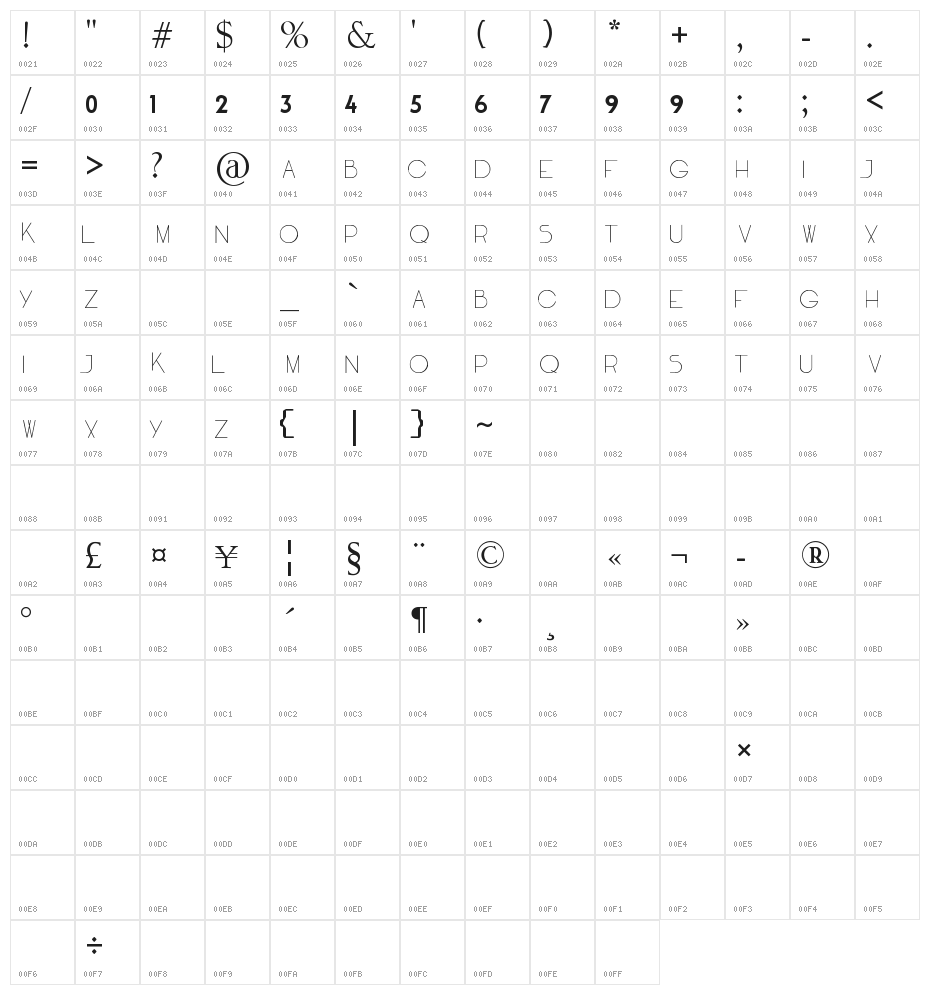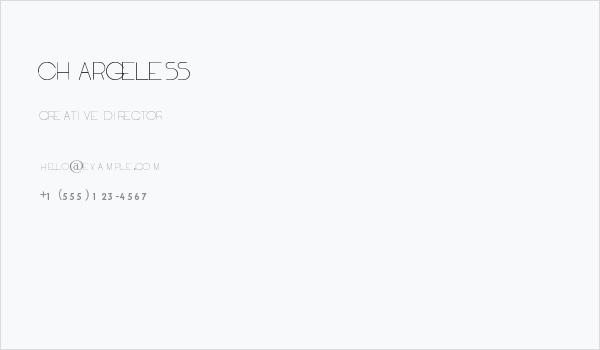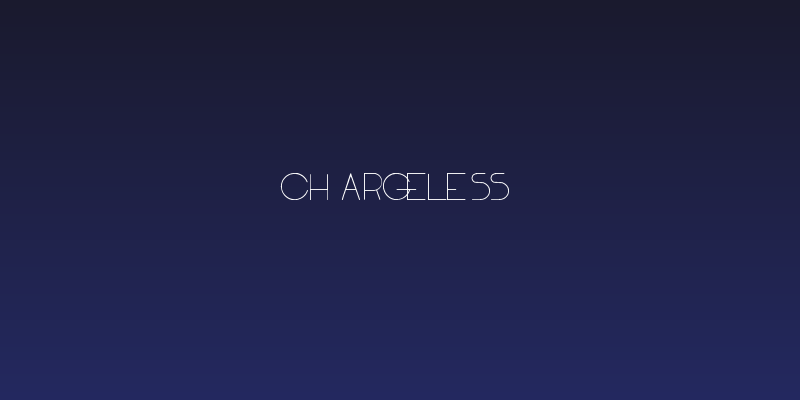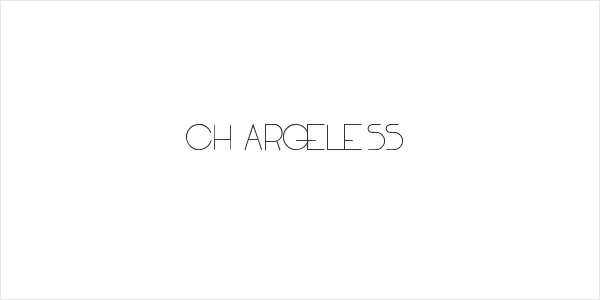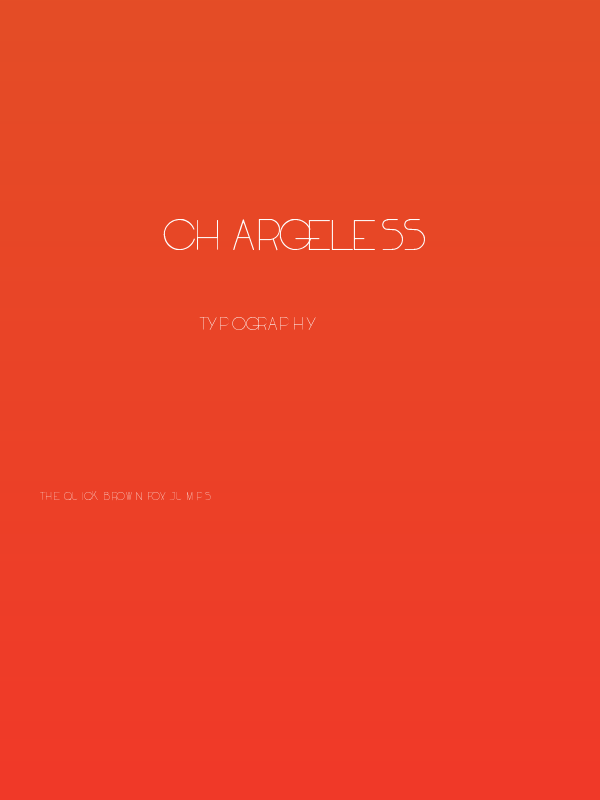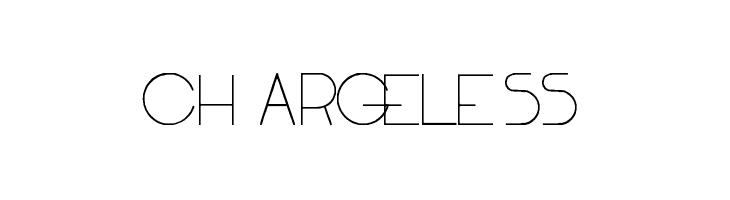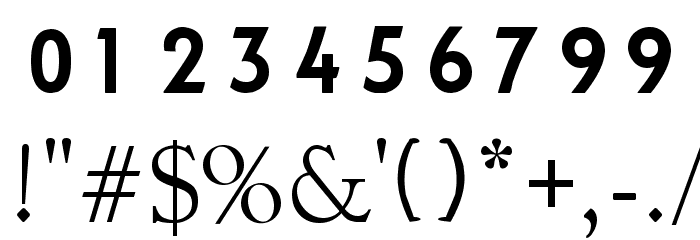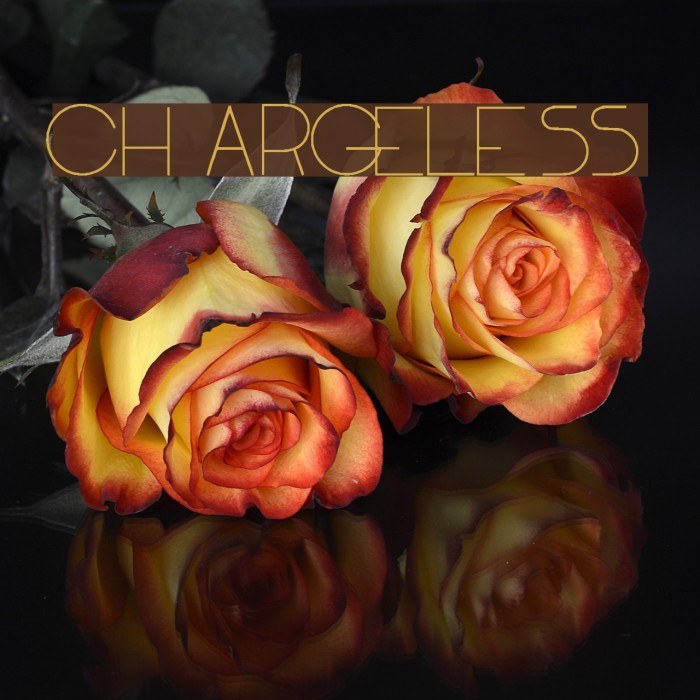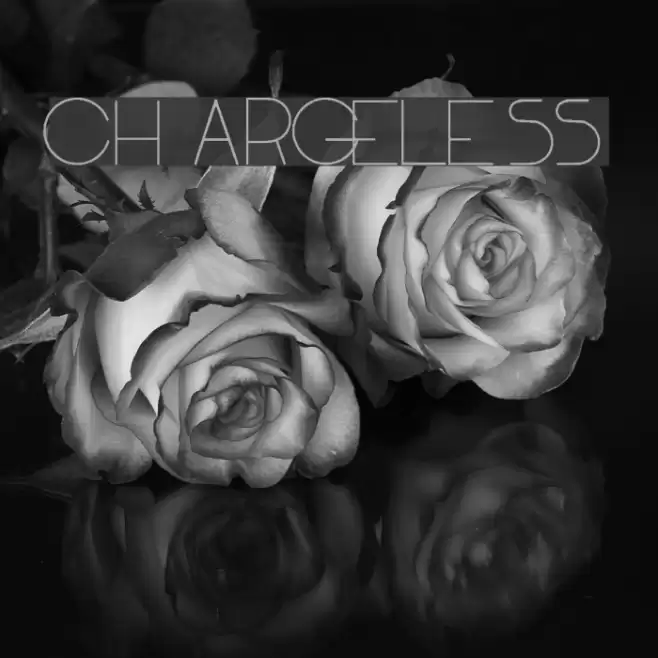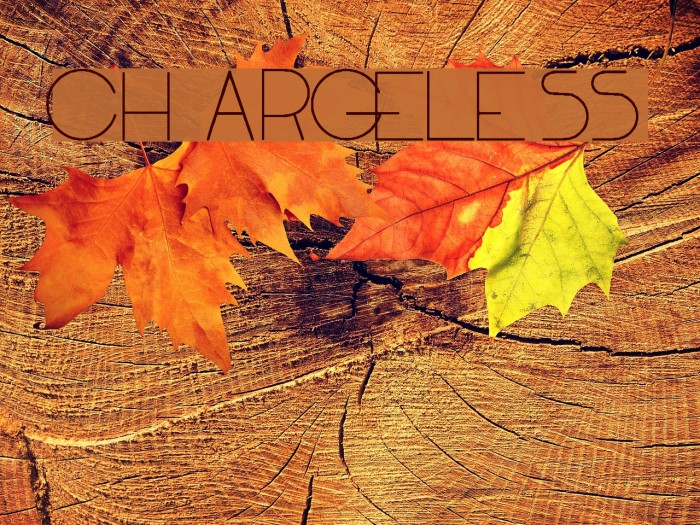
ChargeleSS Font
This font features a modern, geometric design with clean lines and a minimalist aesthetic. The uppercase letters are characterized by their sharp angles and uniform stroke width, creating a sense of precision and clarity. The lowercase letters maintain the same geometric style, offering a cohesive look across both cases. The numerals are bold and distinct, ensuring readability. Special characters are designed with the same attention to detail, making them seamlessly integrate with the rest of the font. This font's simplicity and elegance make it versatile for various design applications.
| Use Case | Headlines, Logos, Branding |
| Proposed Projects | Ideal for branding, logos, headlines, and modern web design projects. |